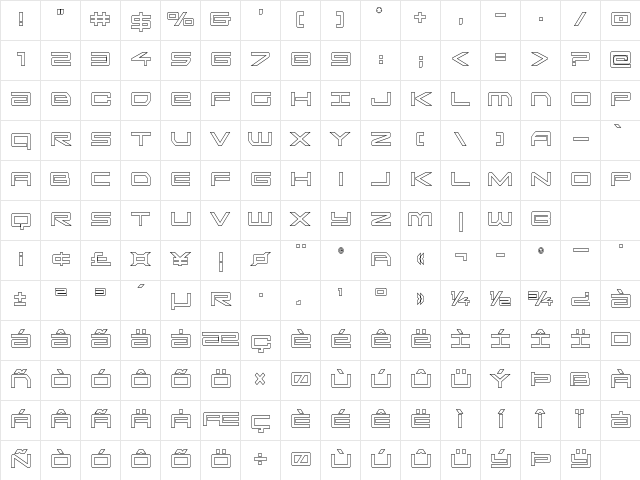
Sky Ridge Condensed Outline Regular
Design Context for Sky Ridge Condensed Outline
Sky Ridge Condensed Outline is built around its visual character rather than neutral utility - its distinctive forms are designed to make an impression at display sizes.
Font Pairing: Pair with a clean neutral sans-serif for body copy to let Sky Ridge Condensed Outline's character lead without overwhelming the composition.
Pro Tip: Use Sky Ridge Condensed Outline exclusively at display sizes - it was designed to be seen, not read at length. Let a neutral companion handle body copy.